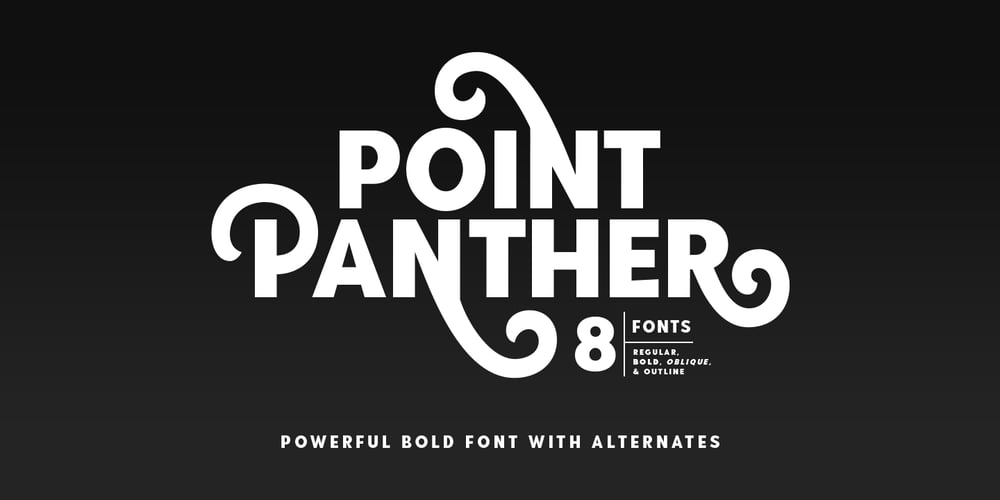
Point Panther
Point Panther font
Point Panther Font Family was designed by Sarid Ezra and published by Sarid Ezra. Point Panther contains 7 styles and family package options. Introducing, A NEW POWERFUL BOLD FONTS WITH ALTERNATES, Point Panther!Point Panther is a headline font with super bold style that contains up to 6 Alternates each characters! You can make a unique branding with this fonts. this powerful bold fonts also included italic and outline style! This fonts suitable to use for poster, branding, merchandise, and any street art style! Also support multilingual.What will you get: Point Panther Regular (Regular, Italic ) Point Panther Bold (Bold, Bold Italic) Point Panther Outline Regular (Regular, Italic ) Point Panther Outline Bold (Bold, Bold Italic) How to access the alternates!If you use PS/AI you can see the tutorial in this : https://helpx.adobe.com/illustrator/using/special-characters.htmlYou can use the PUA for software design that not support Opentype.For another questions, please send a mail to saridezra@gmail.com. Thank You!